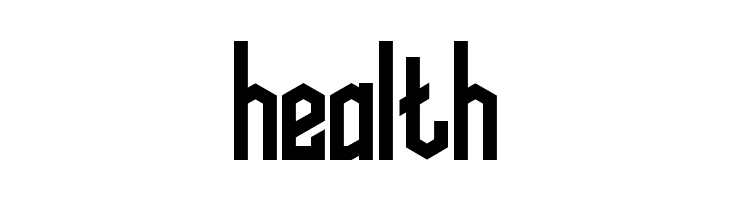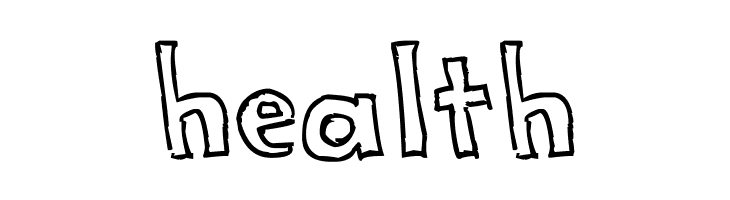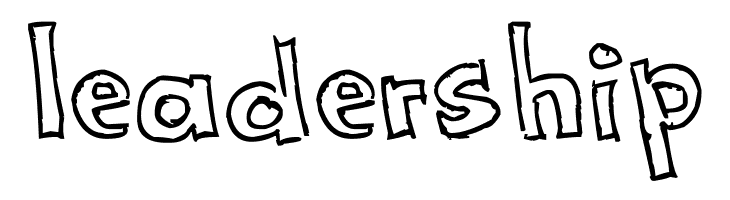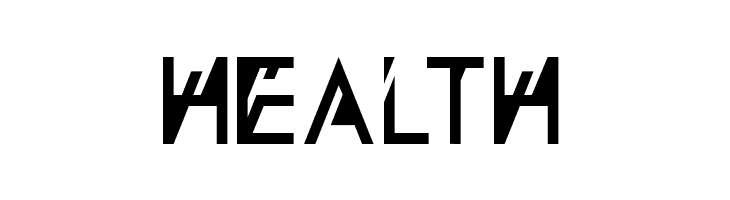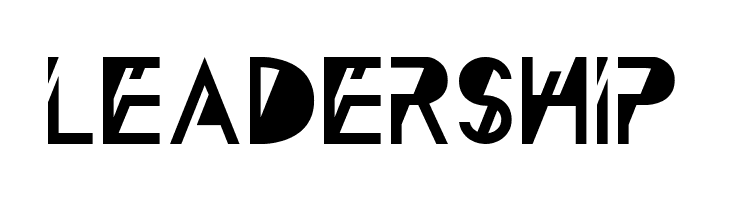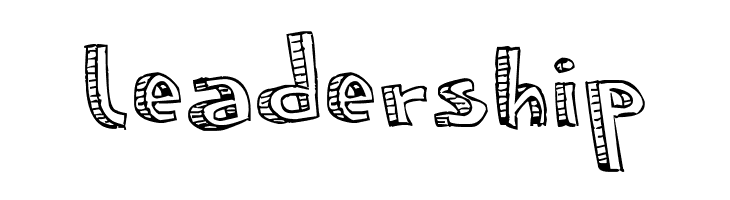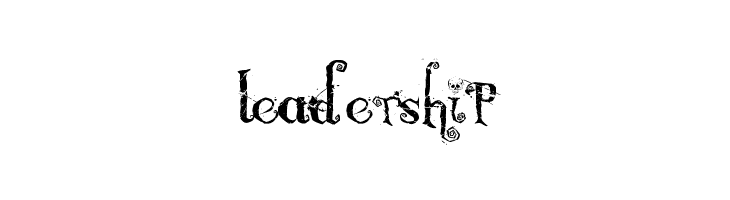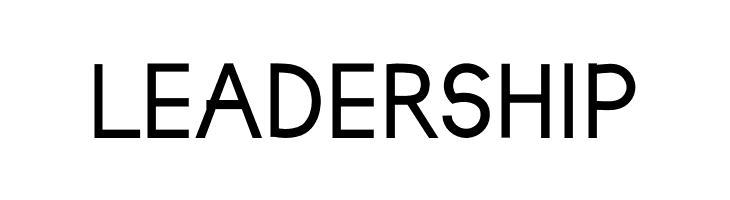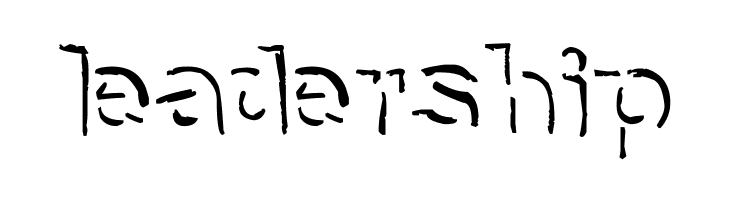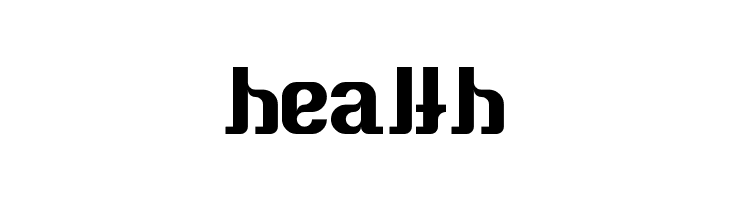
( Fonts by Christopher Hansen )
A decorative, grunge-style font with spirals and distressed textures.
( Fonts by Maelle.K - Thomas Boucherie )
A graffiti-inspired font with angular, edgy letterforms and a bold, expressive style.
( Fonts by Darim Kim - www.aboutletters.com )
A modern, geometric font with rounded edges and high legibility.
A bold, geometric font with sharp angles and unique cutouts.
A bold, geometric sans-serif font with clean lines and modern appeal.
( Mukhlis Risani - www.facebook.com/mukhlis.risani )
A bold, geometric font with high contrast and modern style.